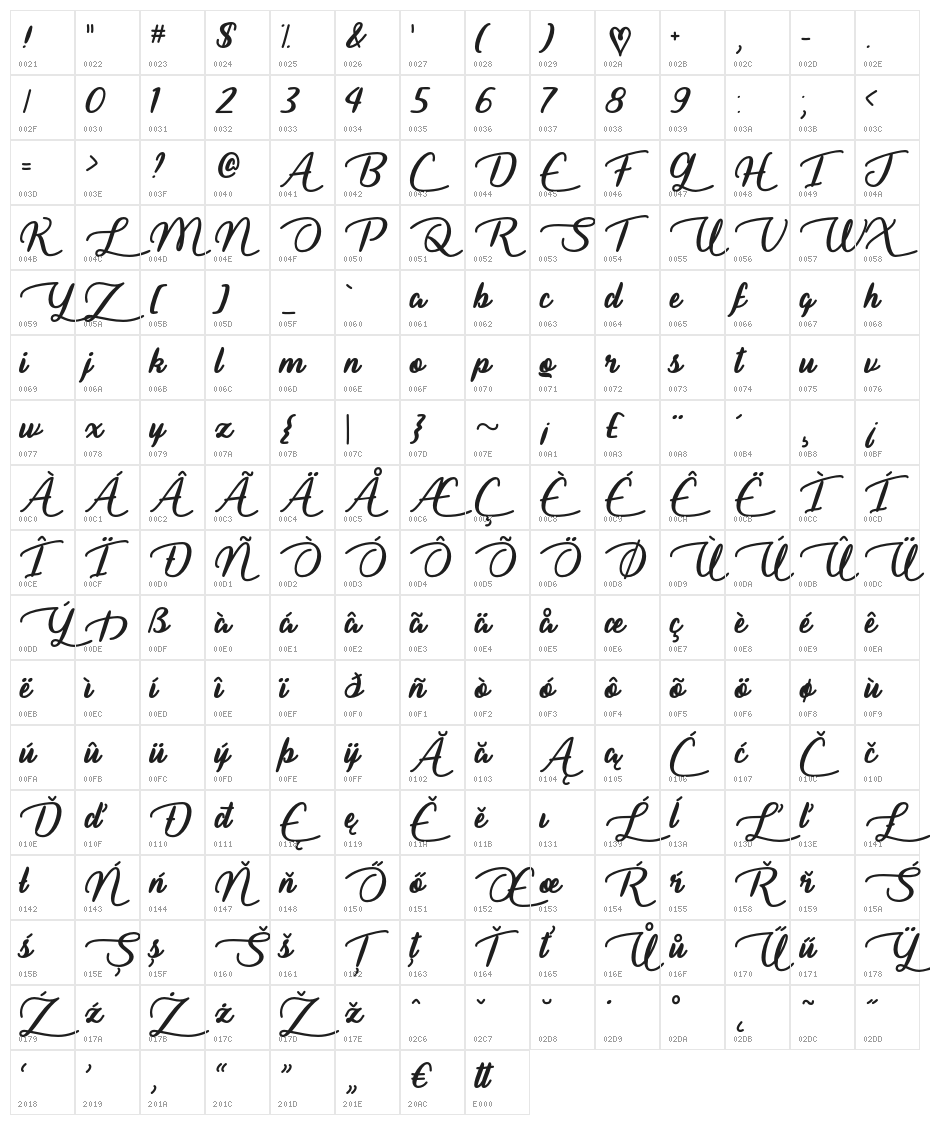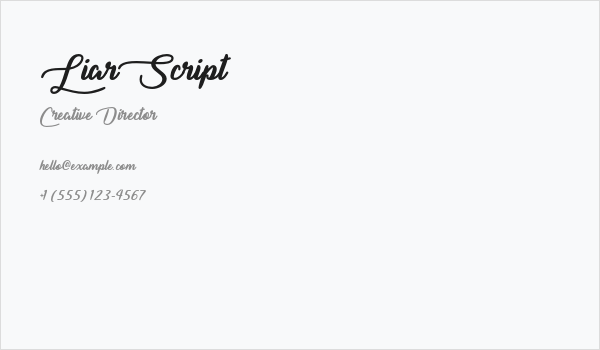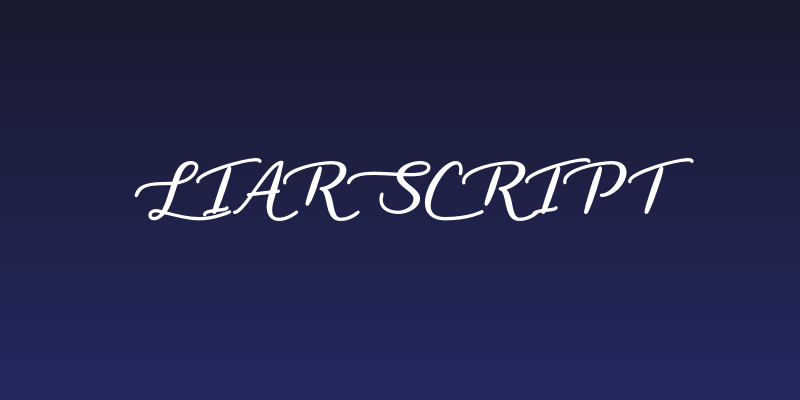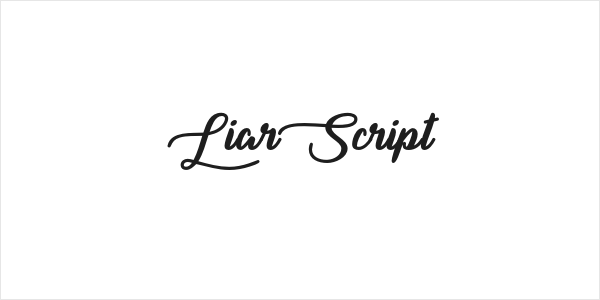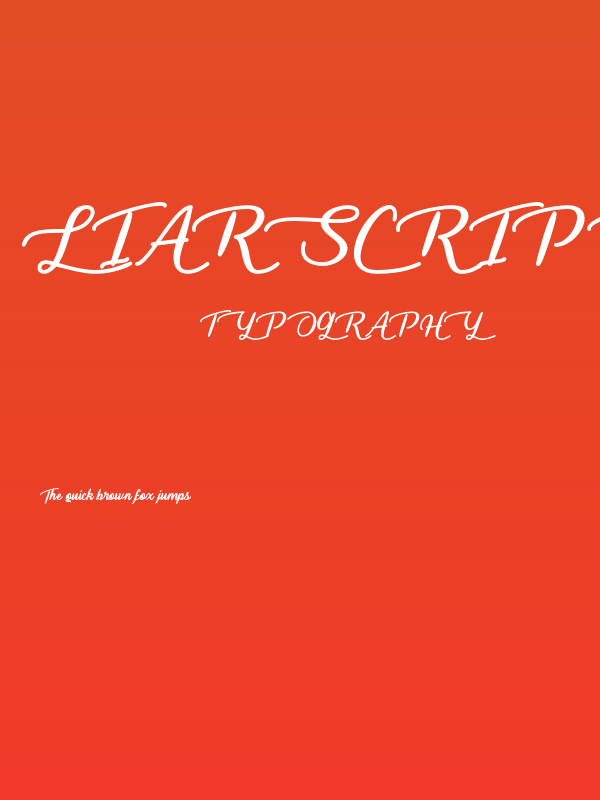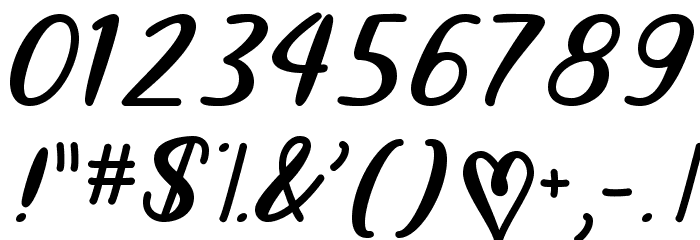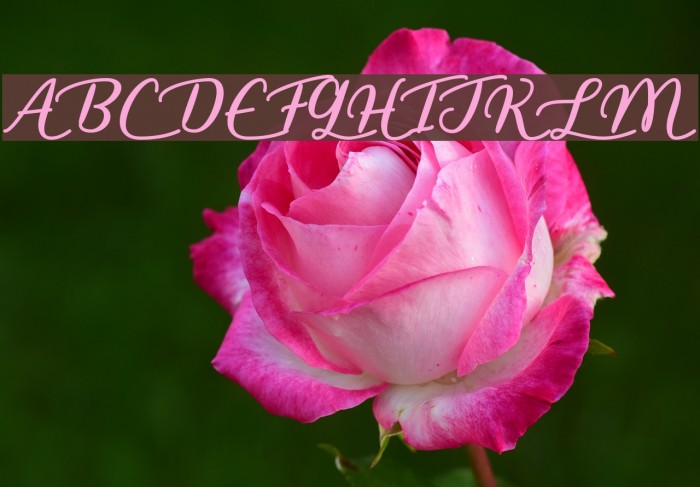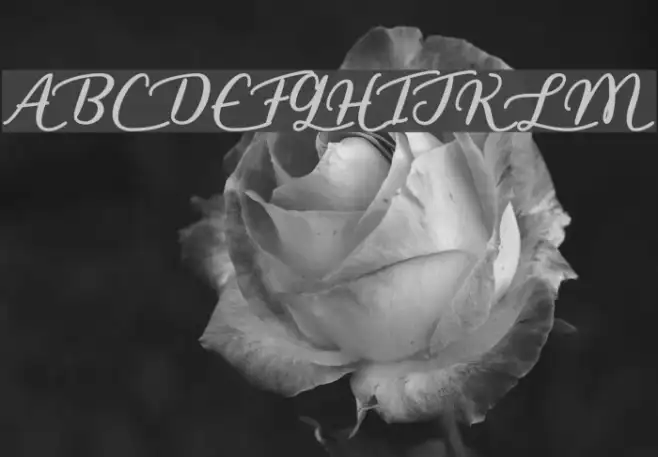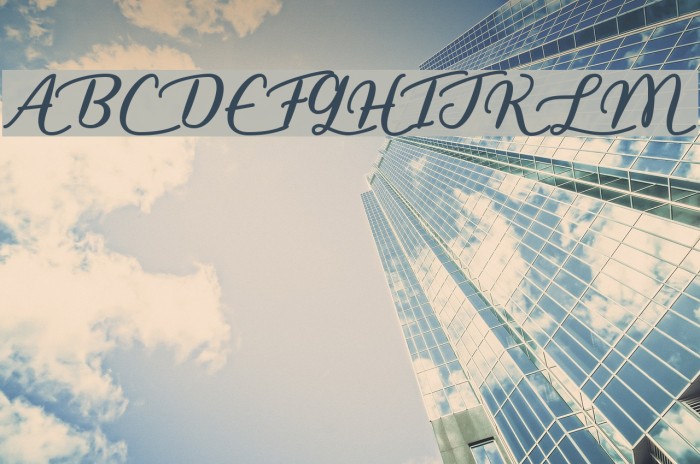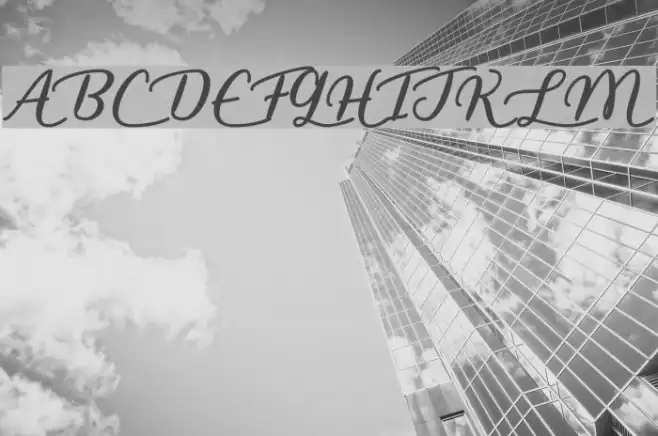
LiarScript Font
LiarScript Description
This font features a dynamic and fluid script style, characterized by its elegant and flowing letterforms. The uppercase letters exhibit a graceful, cursive design with smooth, connected strokes, while the lowercase letters maintain a bold and confident appearance. The numerals are crafted with a similar fluidity, ensuring consistency across the character set. Special characters are thoughtfully integrated, adding to the font's versatility. The overall design exudes a sense of sophistication and charm, making it suitable for a variety of creative applications.
| Proposed Projects | Ideal for wedding invitations, branding, greeting cards, and elegant signage. |